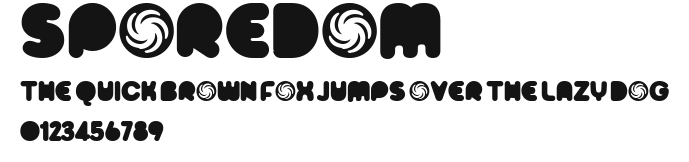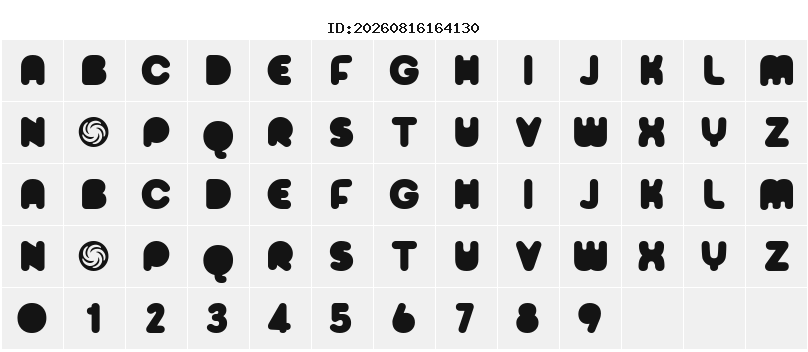
Sporedom Preview
About Sporedom.ttf
Sporedom.ttf is a modern, elegant sans-serif font designed for ultimate readability and visual harmony. Perfect for branding, headlines, web design, and print materials.